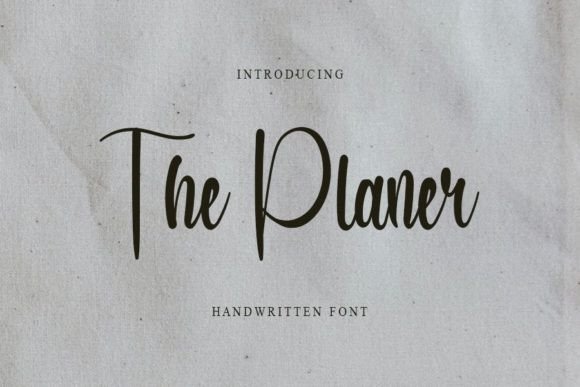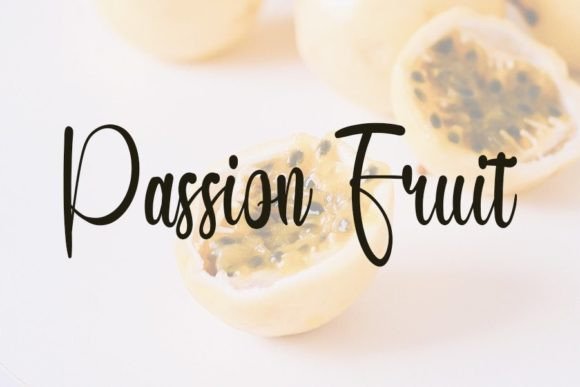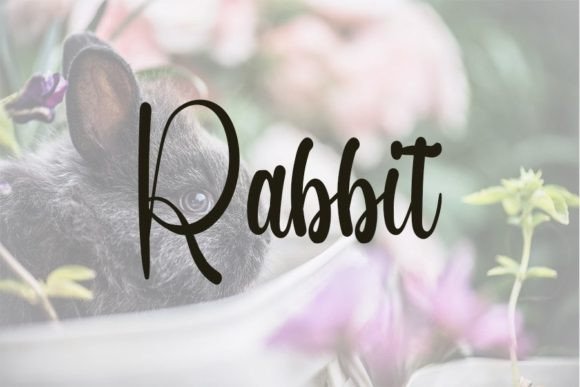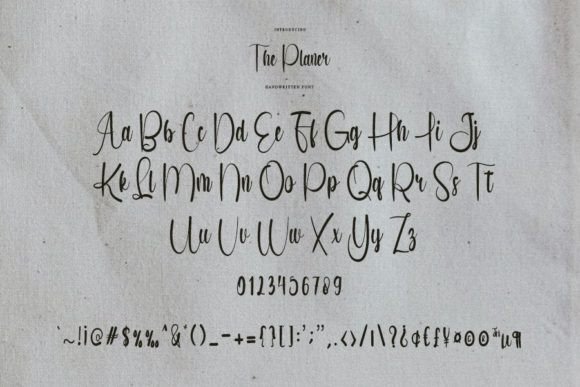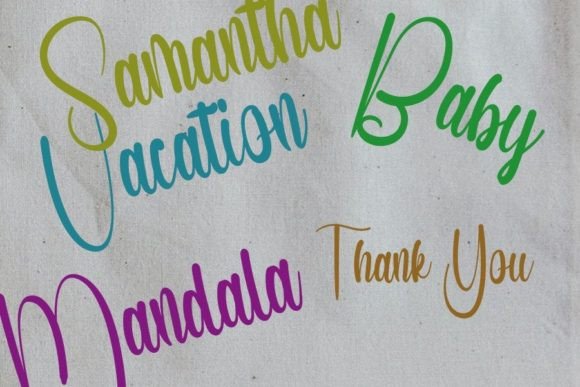
The Planer Font
Step into the world of charm and creativity with The Planer, a friendly handwritten font that has been meticulously designed to become an instant favorite. Balancing its classy calligraphic influences with a contemporary and fresh feel, The Planer is ready to infuse your creative projects with a touch of uniqueness, making them truly outstanding.
The friendly and approachable nature of The Planer makes it an excellent choice for a variety of design applications. Its handwritten charm adds a personal touch to your text, creating an inviting and engaging visual experience for your audience.
Incorporate The Planer into your creative endeavors and witness how it transforms them into standout pieces of design. Whether you’re working on branding, invitations, social media graphics, or any other creative project, The Planer brings a distinctive personality that sets your work apart.
For branding, The Planer becomes a valuable asset in creating a visual identity that is both classy and approachable. Its contemporary feel ensures that your brand communicates a fresh and modern image, resonating with your target audience.
Invitations take on a special allure with The Planer, as its friendly and handwritten style sets the perfect tone for celebrations and events. From wedding invitations to party announcements, this font adds a delightful touch to your designs.
In the realm of social media graphics, The Planer becomes a powerful tool for creating eye-catching and shareable content. Its fresh and contemporary feel ensures that your messages are communicated with a touch of authenticity and friendliness.
Maintaining its calligraphic influences, The Planer is suitable for projects that require a touch of elegance. Whether you’re designing elegant stationery, greeting cards, or sophisticated event materials, this font adds a classy yet friendly vibe.
Embrace the outstanding qualities of The Planer as it becomes a trusted companion in your creative journey. Let its friendly handwritten charm elevate your designs, making them not only visually appealing but also approachable and memorable.